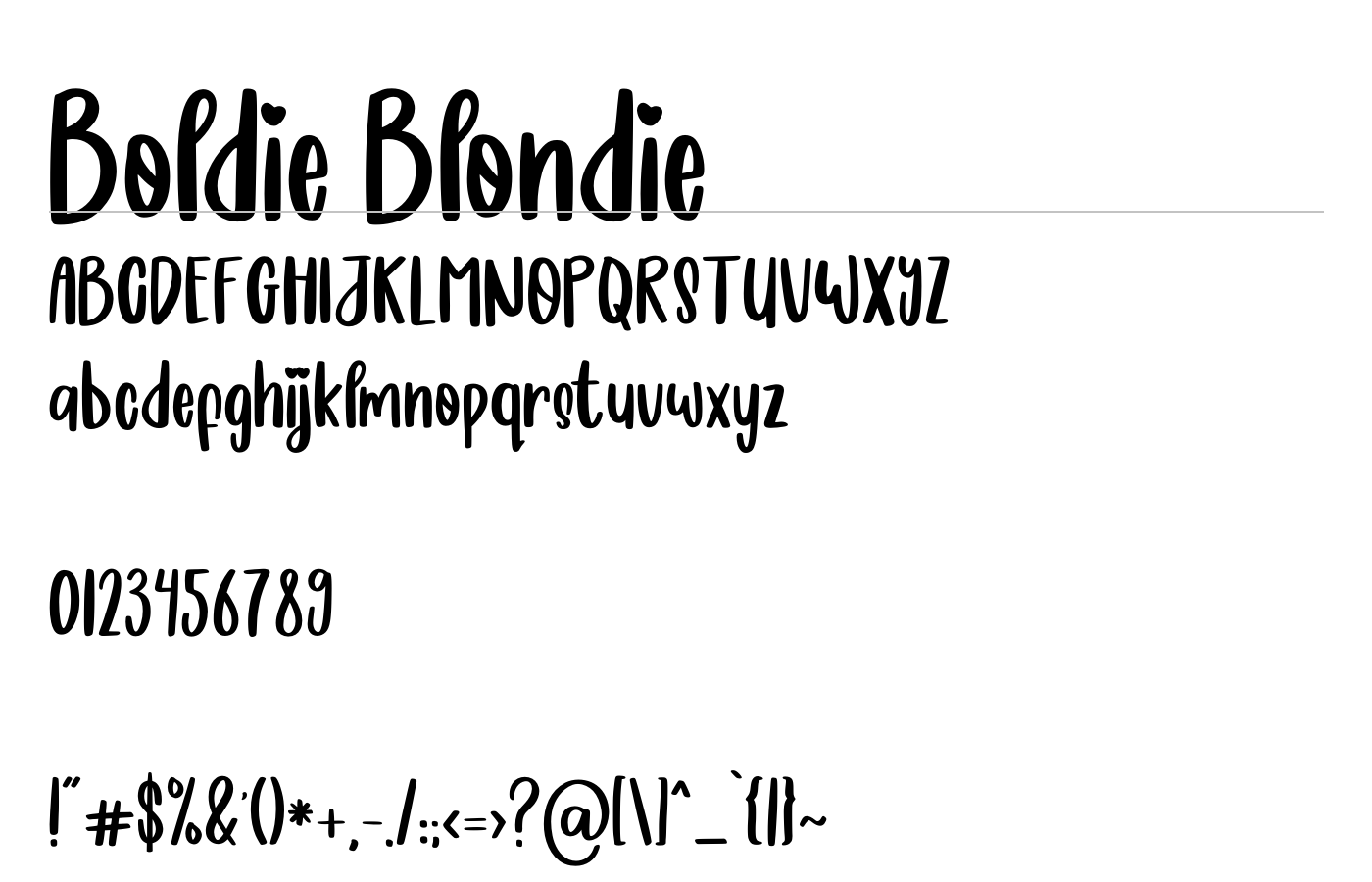
Boldie Blondie is a playful and friendly handwritten sans serif font with tall, narrow letterforms and a casual, slightly bouncy rhythm. Its bold weight combined with quirky details like a heart-shaped dot on the "i" adds a charming, informal vibe perfect for fun, creative projects. This font works well in logos, packaging, and headlines where a warm, approachable personality is desired.
Boldie Blondie Font
About Boldie Blondie Font
| Font family | Boldie Blondie Font |
| Designer | Typesthetic Studio - Hamzah Muhamad Ihsan - Jakarta (INA) |